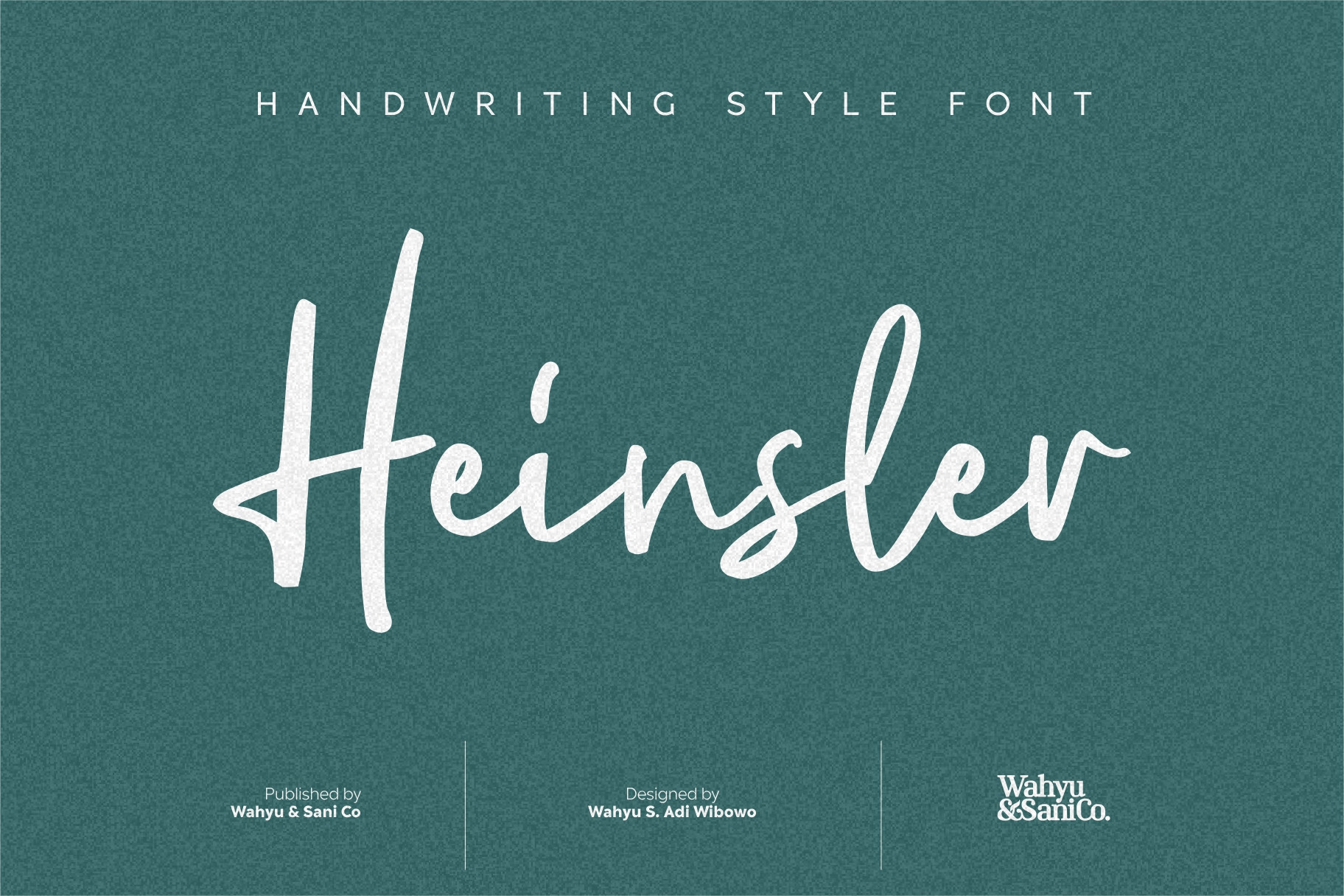
Heinsler | Handwriting Style Font
Heinsler is handwriting style font, manually crafted using brush pen. Digitalized carefully to keep the original handwriting looks and feel. This font would be a good fit for logotype, tag lines, and some glyphs could be useful to make a logo icon/symbol. Some ligatures, uppercase, lowercase, currency symbols, alternate glyphs and punctuations included.